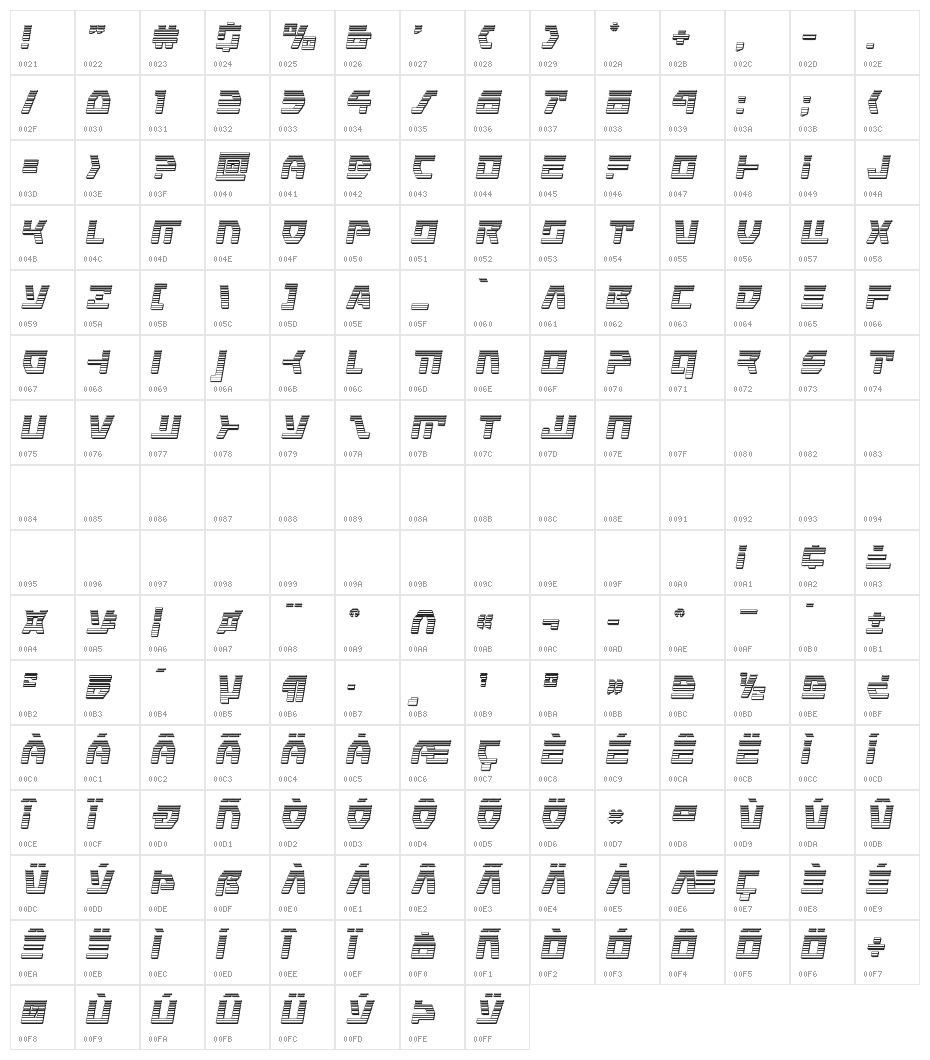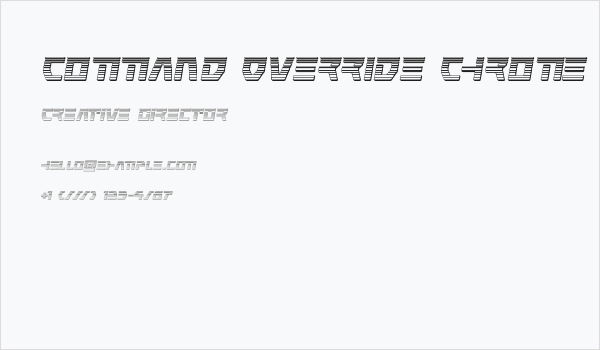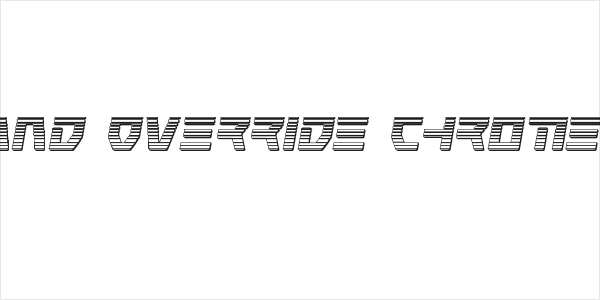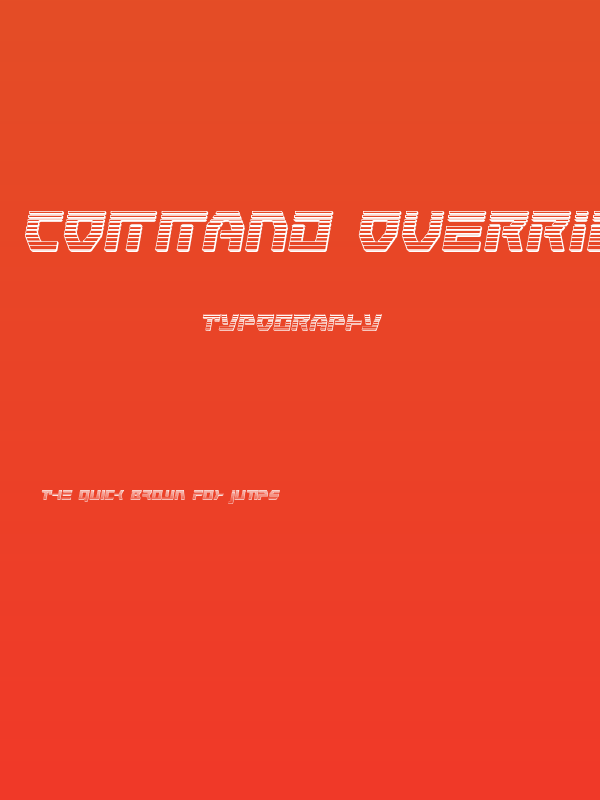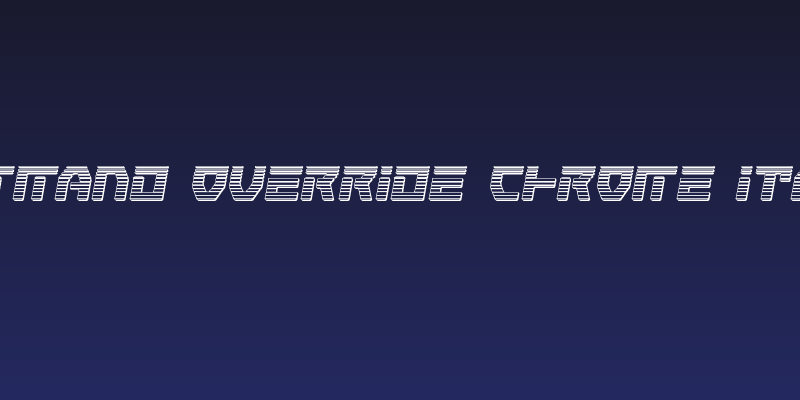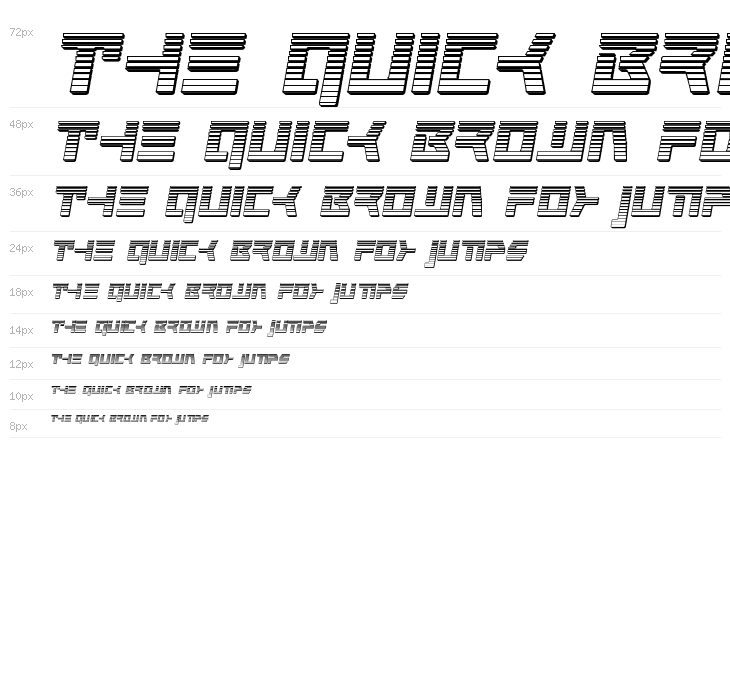
Command Override Chrome Italic Font
Command Override Chrome Italic Description
This font features a futuristic and bold design with a distinct three-dimensional effect. Each character is composed of multiple parallel lines that create a sense of depth and movement. The uppercase and lowercase letters maintain a consistent style, with angular and geometric shapes that emphasize a modern aesthetic. The numbers and special characters follow the same design principles, ensuring uniformity across the entire typeface. This font's unique appearance makes it stand out, ideal for projects that require a strong visual impact.
| Proposed Projects | Ideal for sci-fi themed posters, video game titles, tech branding, and futuristic event flyers. |